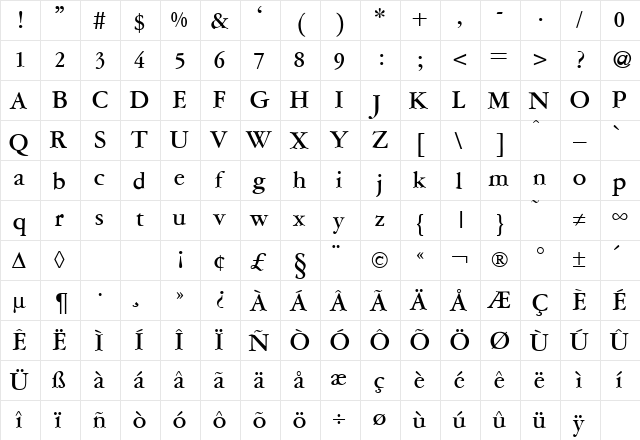
AmsterdamerGaramont Bold
Design Context for AmsterdamerGaramont Typeface
AmsterdamerGaramont is a composed and adaptable typeface that performs quietly and consistently across a wide range of design contexts. The heavy weight commands attention and anchors typographic hierarchies.